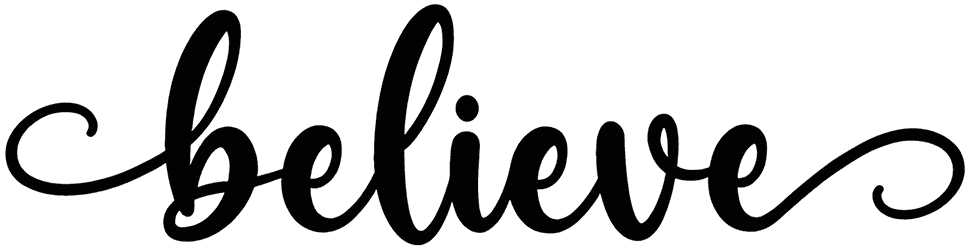
Believe Font
Believe is a handwritten script font with a calligraphic aesthetic, ideal for creating invitations, lettering, posters, and banners. Using this font will give your writing an air of sophistication and refinement.